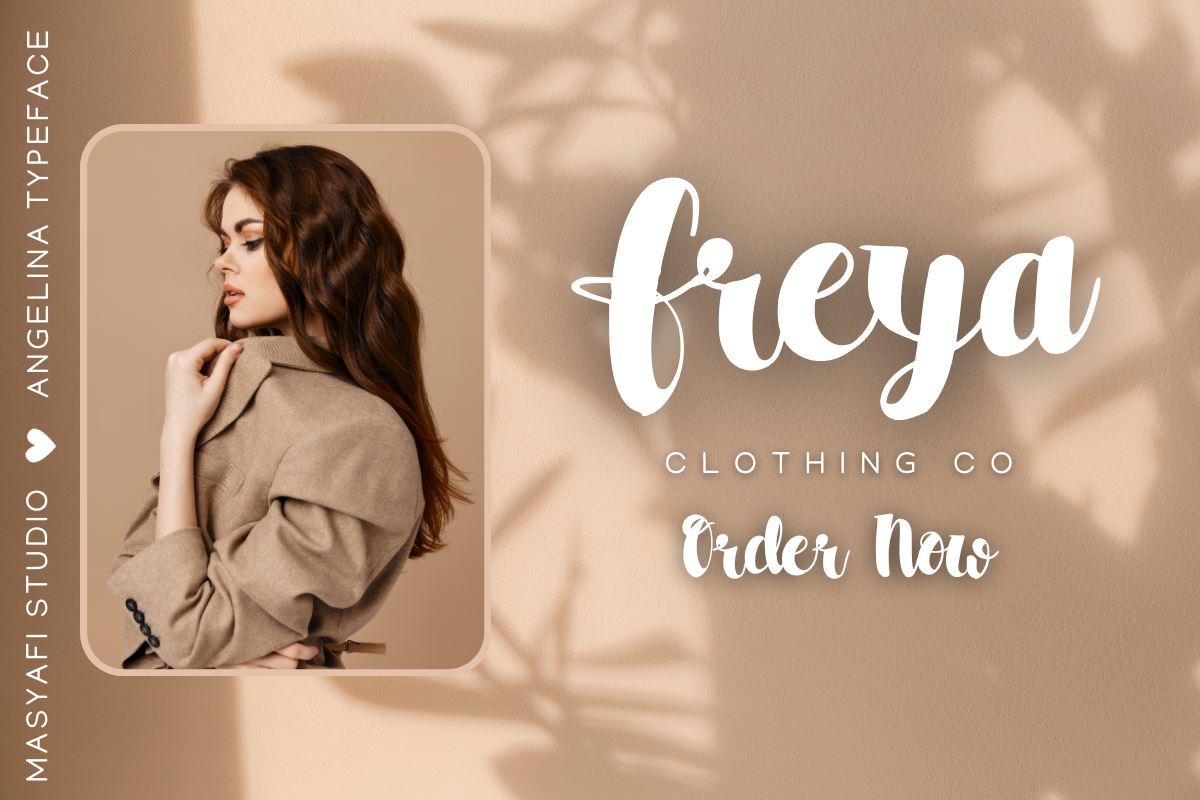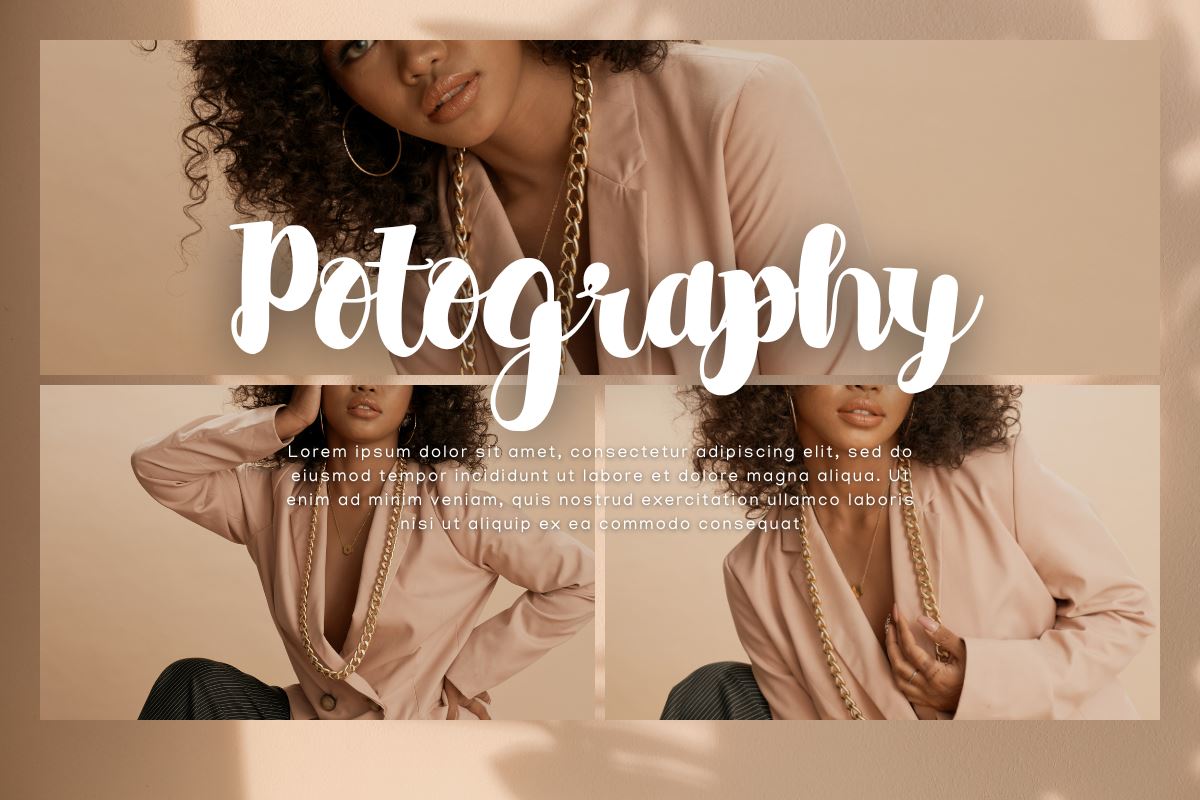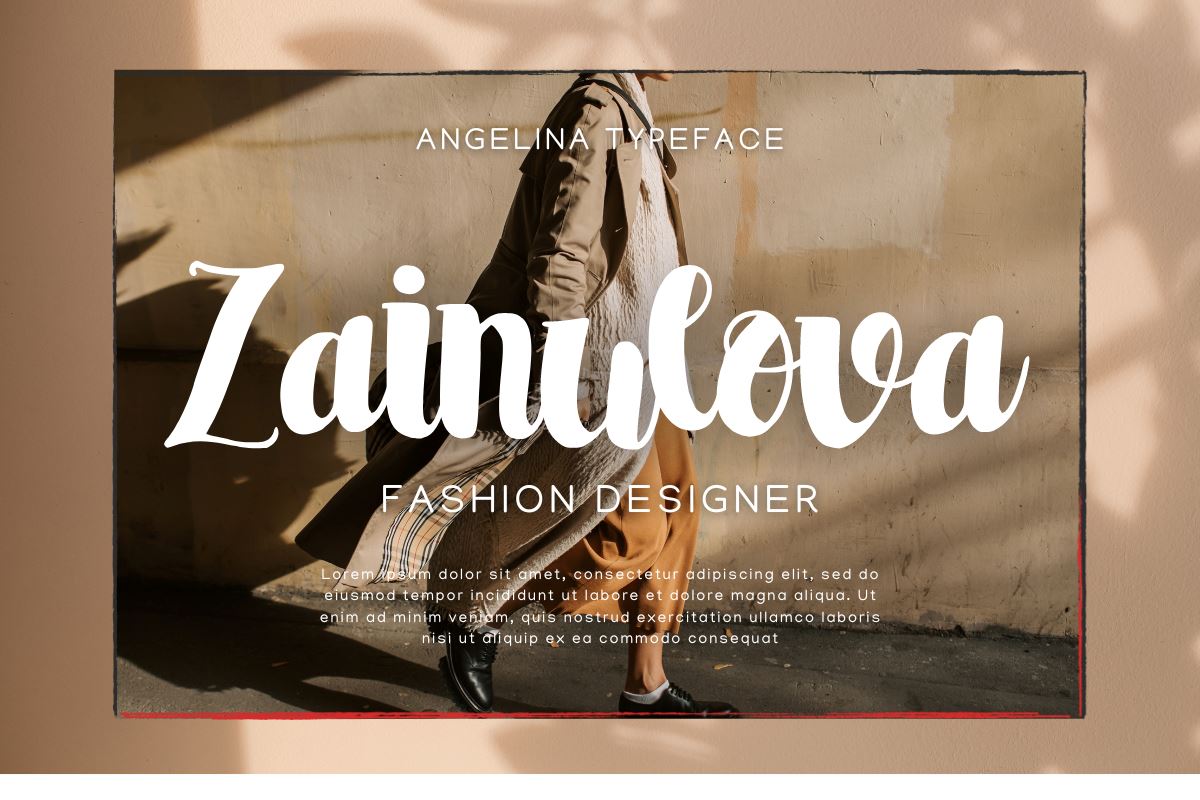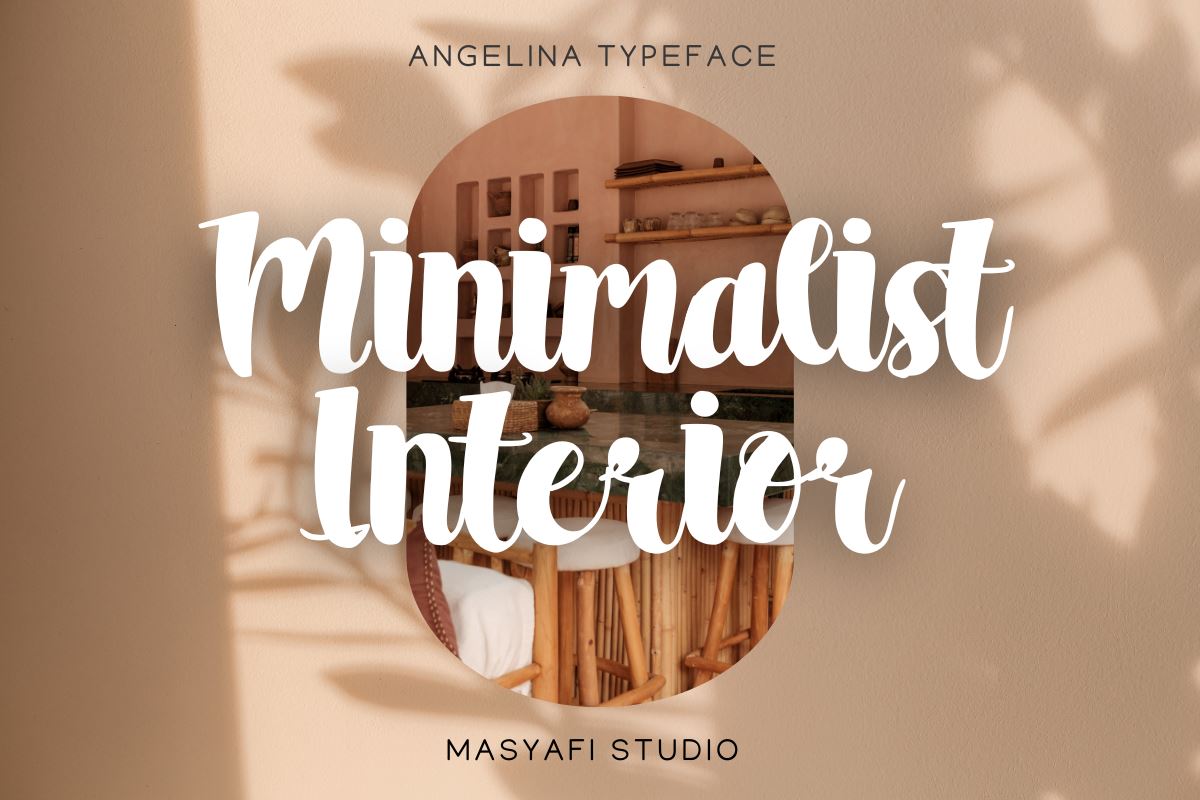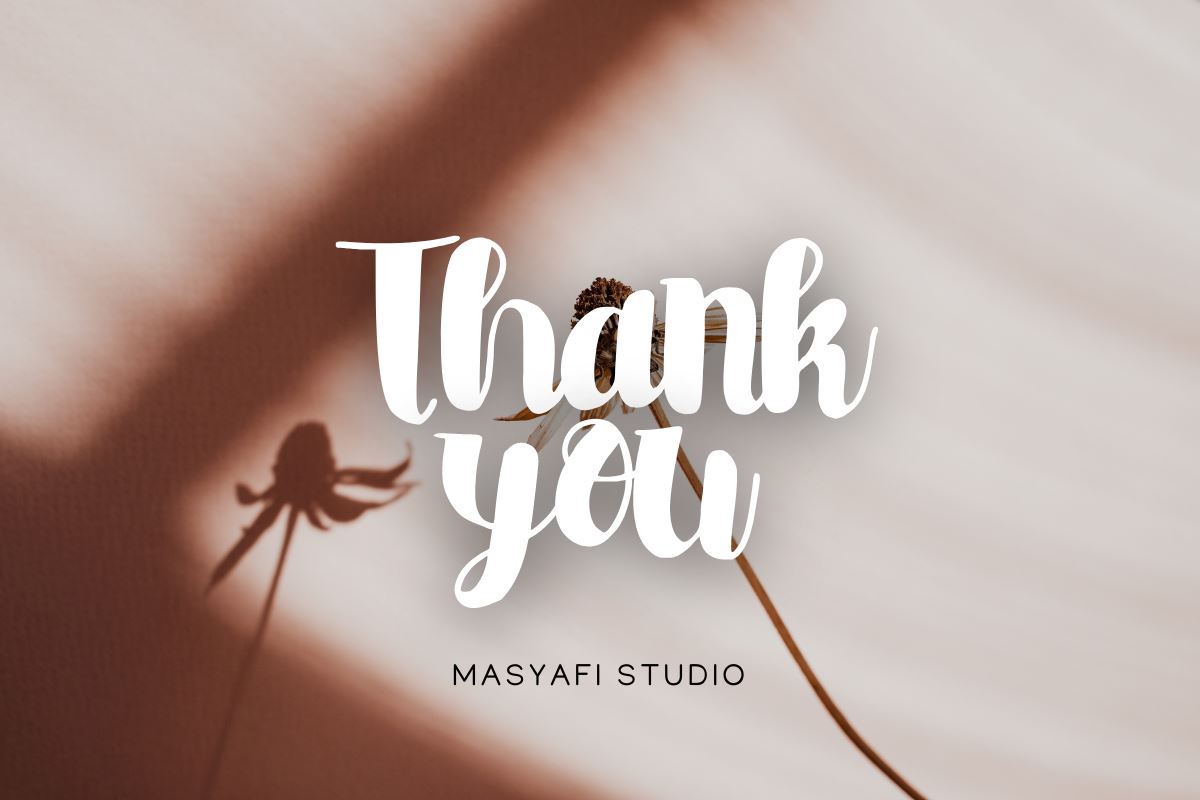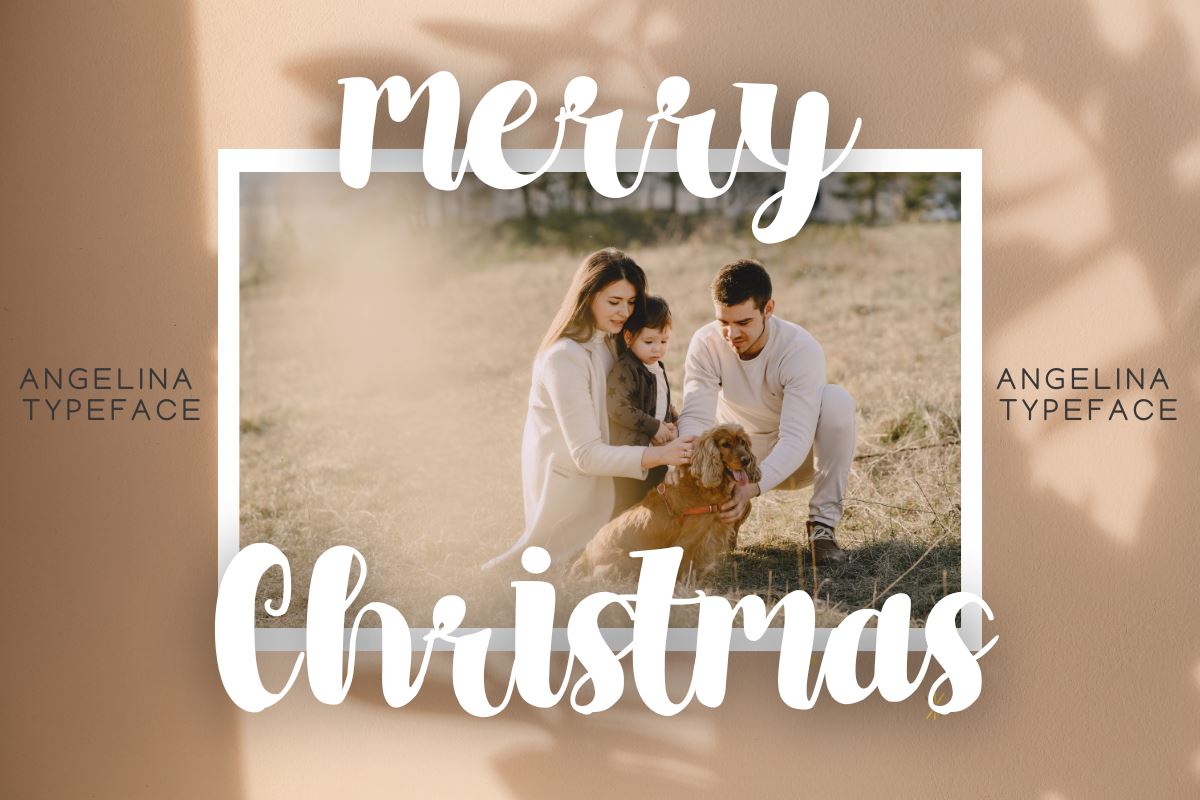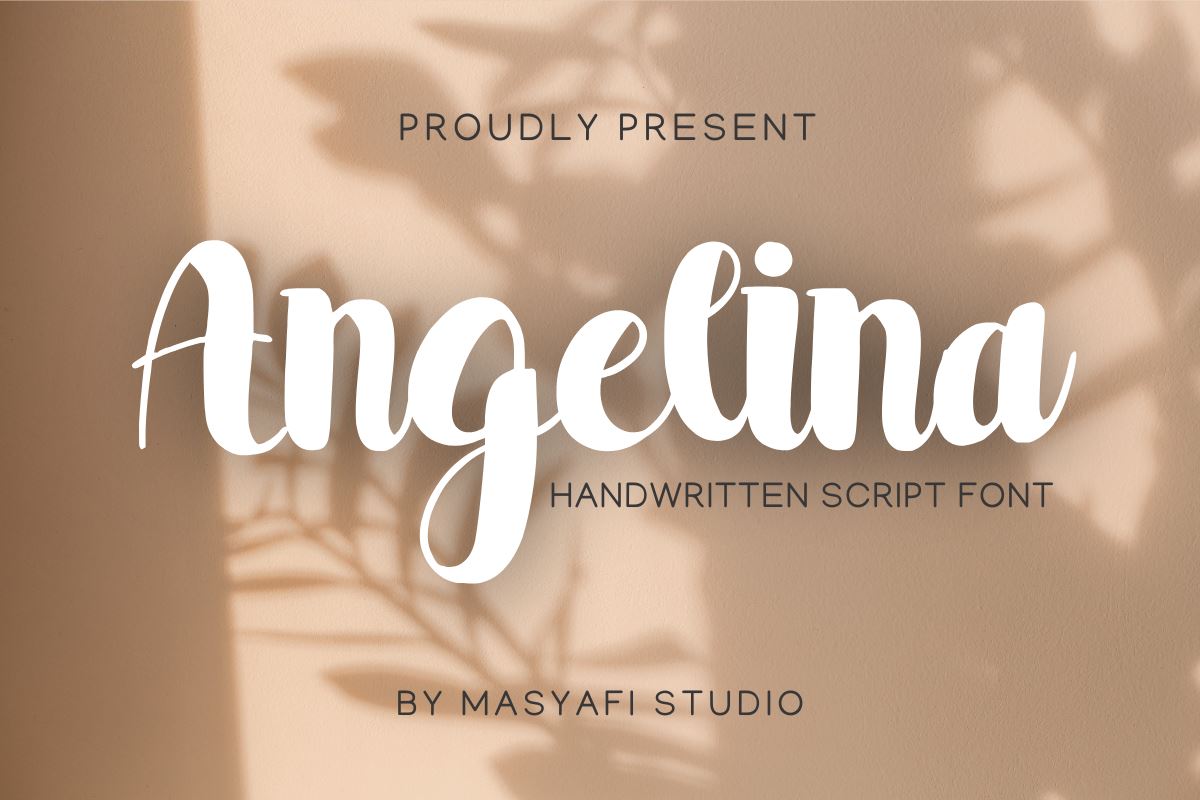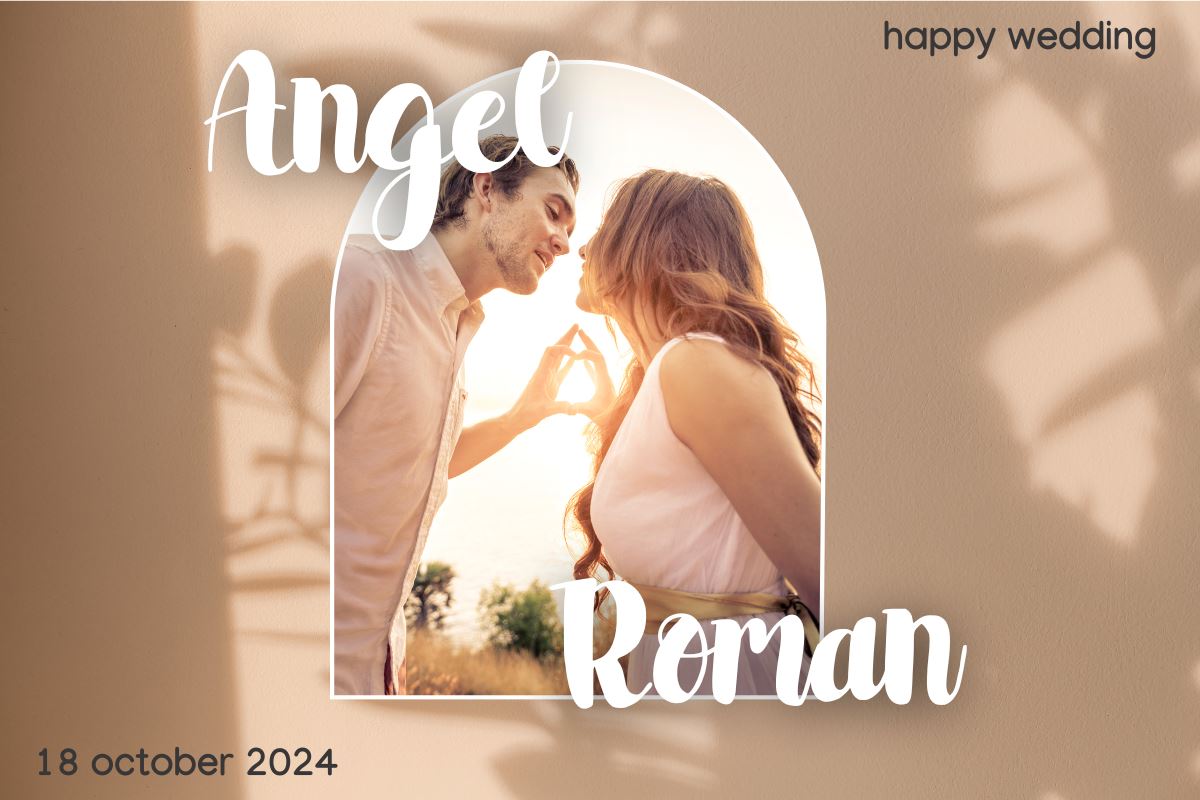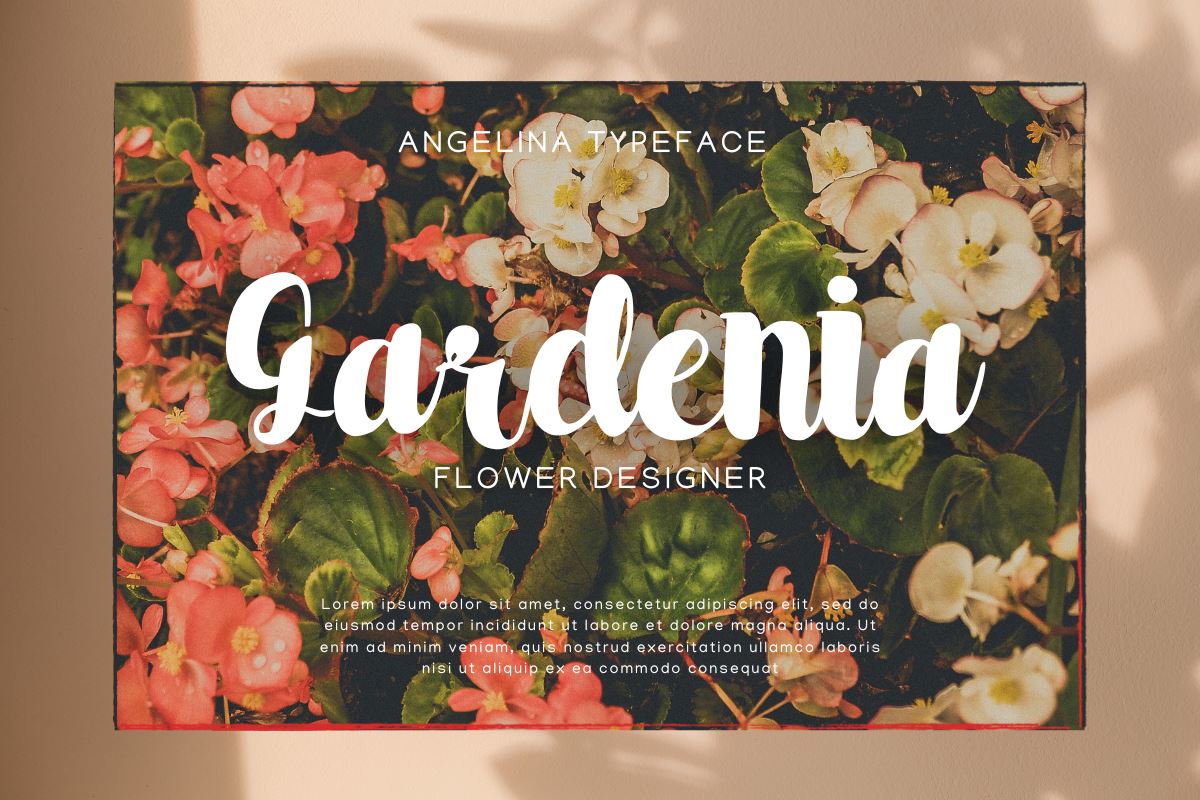
Angelina – Modern Handwritten Font
Hi, Introducing Angelina – Modern Handwritten Font В A beautiful and adorable Handwritten font made with real handwriting. This font is very cool for weddings, engagements, romance, greeting cards, invitations, labels, logotypes, crafts, SVG quotes, DIY, t-shirts, mugs, Cricut and many other ideas В Features of this Font: В – OTF file – TTF file – WOFF file – SVG file – Uppercase – Lowercase – Numbers & Punctuation – Compatible Mac/Window – Easy to use В Hope you like it! Thank You